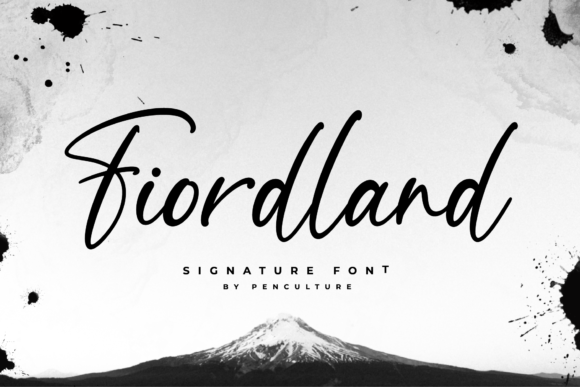
Fiordland Font: A Unique and Wonderful Script with an Authentic Twist
When it comes to typography, there are countless fonts to choose from, each with its own unique character and charm. However, some fonts stand out from the rest, and Fiordland is one of them. This beautiful script font has an authentic twist that sets it apart from other fonts, making it a must-have for designers, writers, and anyone looking to add a touch of elegance to their work.
The Story Behind Fiordland Font
Fiordland Font is a script font that was designed to capture the essence of traditional handwriting. Its creator was inspired by the beauty of handwritten scripts and sought to create a font that would evoke a sense of warmth, elegance, and sophistication. The result is a font that is both classic and modern, with a unique twist that makes it truly one-of-a-kind.
Fiordland Font Example
What Makes Fiordland Font So Unique?
So, what sets Fiordland Font apart from other script fonts? For starters, its authentic twist gives it a distinctive character that is hard to find in other fonts. The font’s letters are designed to flow smoothly into one another, creating a sense of continuity and harmony. This makes it perfect for use in a variety of applications, from wedding invitations and greeting cards to blog posts and social media updates.
Dynamic Charm
One of the things that makes Fiordland Font so special is its dynamic charm. The font has a way of drawing the reader in, making them feel like they’re experiencing something truly special. Whether you’re using it to write a romantic letter or create a stunning visual display, Fiordland Font is sure to captivate your audience and leave a lasting impression.
Key Features of Fiordland Font
So, what are some of the key features that make Fiordland Font so unique? Here are just a few of the things that set it apart:
• Authentic twist: Fiordland Font has a distinctive twist that gives it a unique character.
• Smooth lettering: The font’s letters are designed to flow smoothly into one another, creating a sense of continuity and harmony.
• Elegant and sophisticated: Fiordland Font is perfect for use in applications where you want to convey a sense of elegance and sophistication.
• Dynamic charm: The font has a way of drawing the reader in, making them feel like they’re experiencing something truly special.
How to Use Fiordland Font
Fiordland Font is a versatile font that can be used in a variety of applications. Here are just a few ideas to get you started:
• Wedding invitations: Fiordland Font is perfect for use in wedding invitations, where its elegant and sophisticated charm can help set the tone for a special day.
• Greeting cards: The font’s dynamic charm makes it a great choice for use in greeting cards, where you want to make a lasting impression.
• Blog posts: Fiordland Font can add a touch of elegance to your blog posts, making them more engaging and enjoyable to read.
• Social media updates: The font’s smooth lettering and authentic twist make it a great choice for use in social media updates, where you want to stand out from the crowd.
Tips for Getting the Most Out of Fiordland Font
Here are a few tips for getting the most out of Fiordland Font:
• Use it sparingly: Fiordland Font is a bold and elegant font, so it’s best to use it sparingly to avoid overwhelming your audience.
• Pair it with other fonts: The font pairs well with other fonts, so don’t be afraid to experiment with different combinations.
• Experiment with different sizes: Fiordland Font looks great in a variety of sizes, so don’t be afraid to experiment to find the one that works best for your application.
Fiordland Font is a unique and wonderful script font with an authentic twist. Its dynamic charm and elegant sophistication make it perfect for use in a variety of applications, from wedding invitations and greeting cards to blog posts and social media updates. With its smooth lettering and distinctive character, Fiordland Font is sure to captivate your audience and leave a lasting impression.